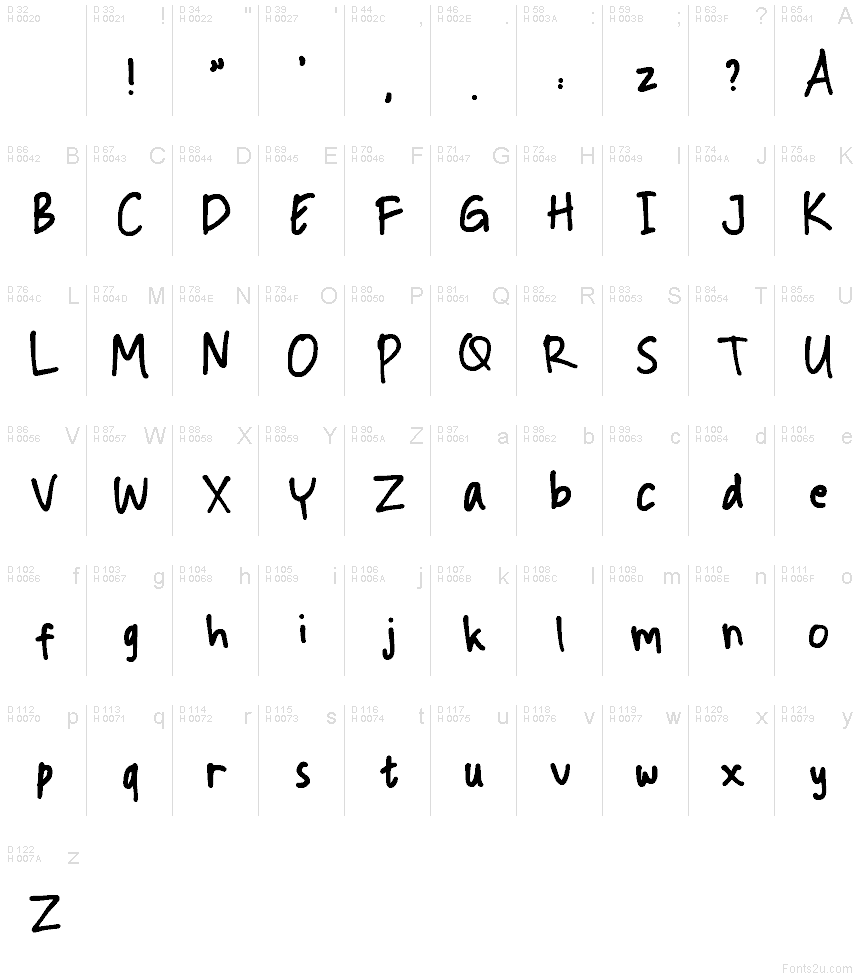
Slee_handwritting Regular
Slee Handwriting font by Sartika Lestari combines the humorous and casual with a modern, friendly look that adds personality and beauty to projects. This free handwritten font offers a stylish vibe with its relaxed characters that perfectly integrate into prints, digital platforms, or any other medium.
Use Slee Handwriting for logos, branding projects, album covers, posters, packaging designs as well as applications in the stationery industry. It is especially suitable for invitations including wedding invitations or thank you cards.